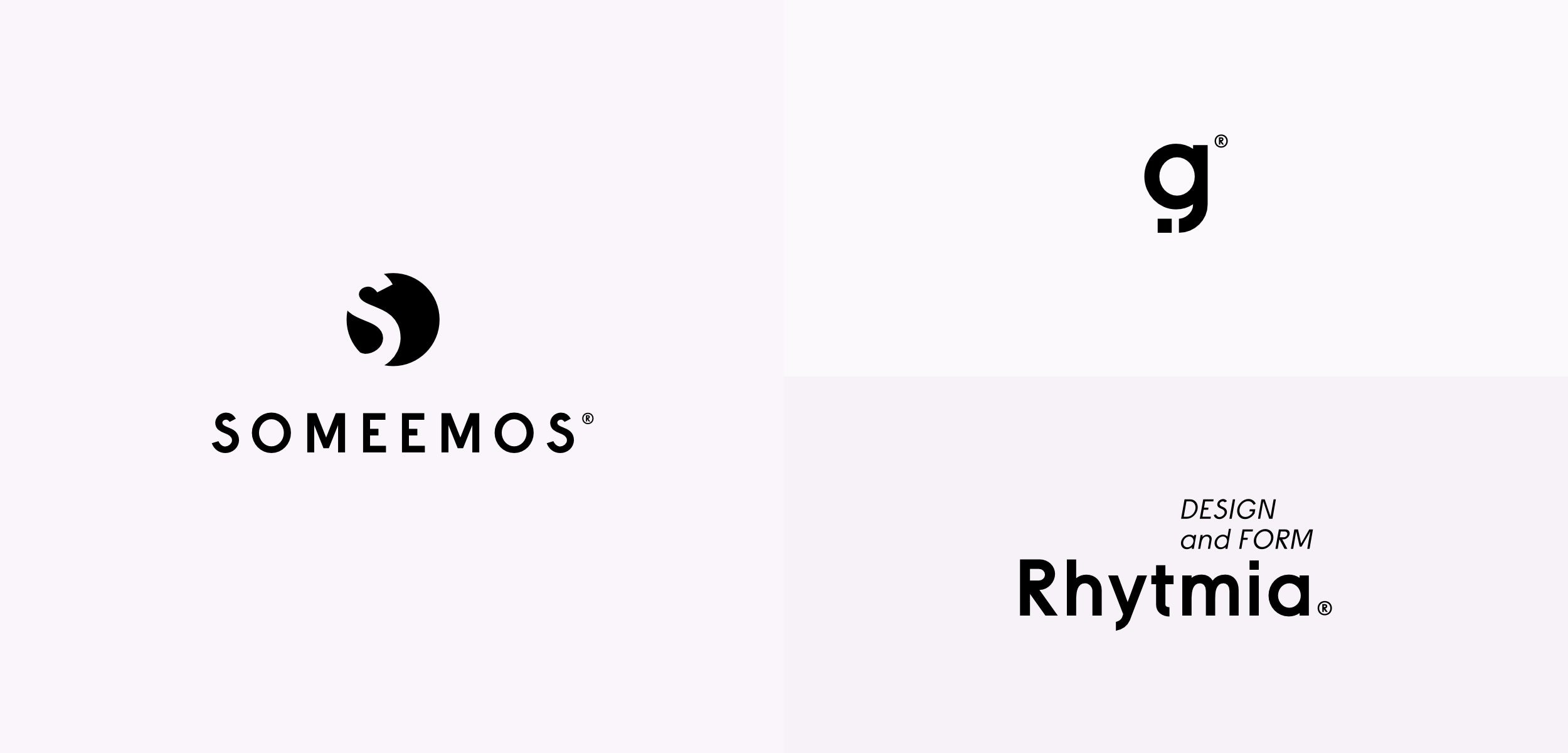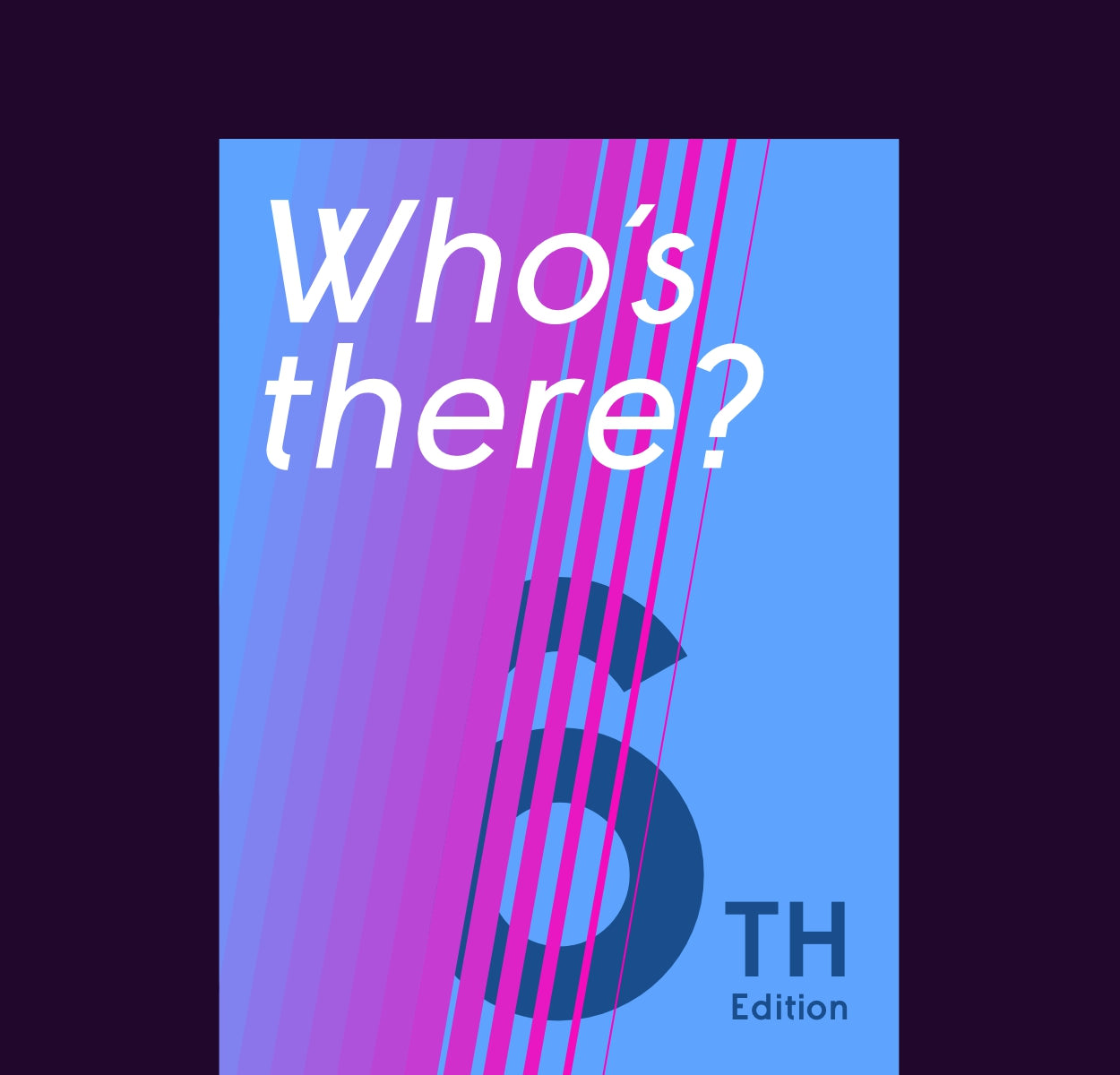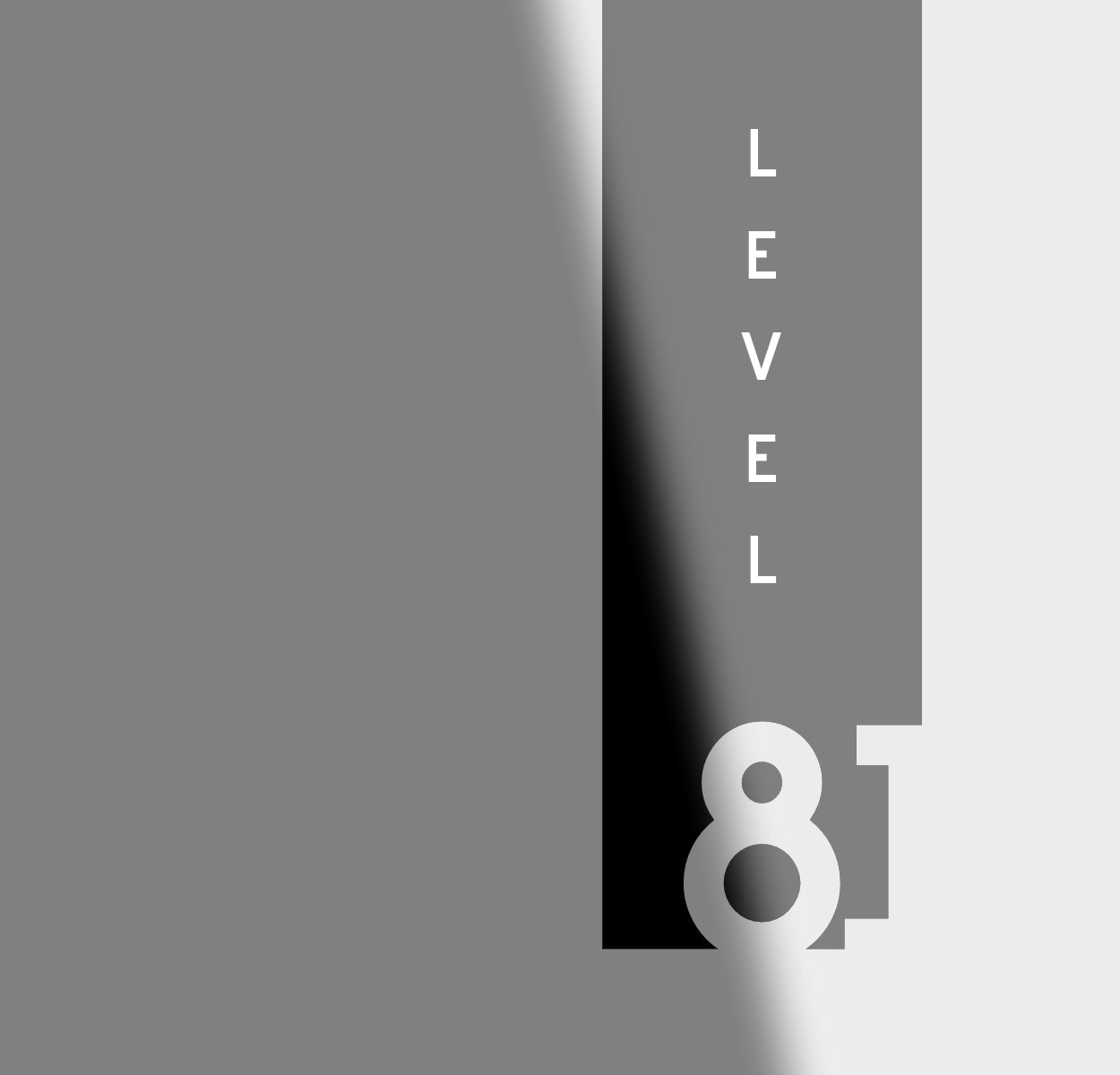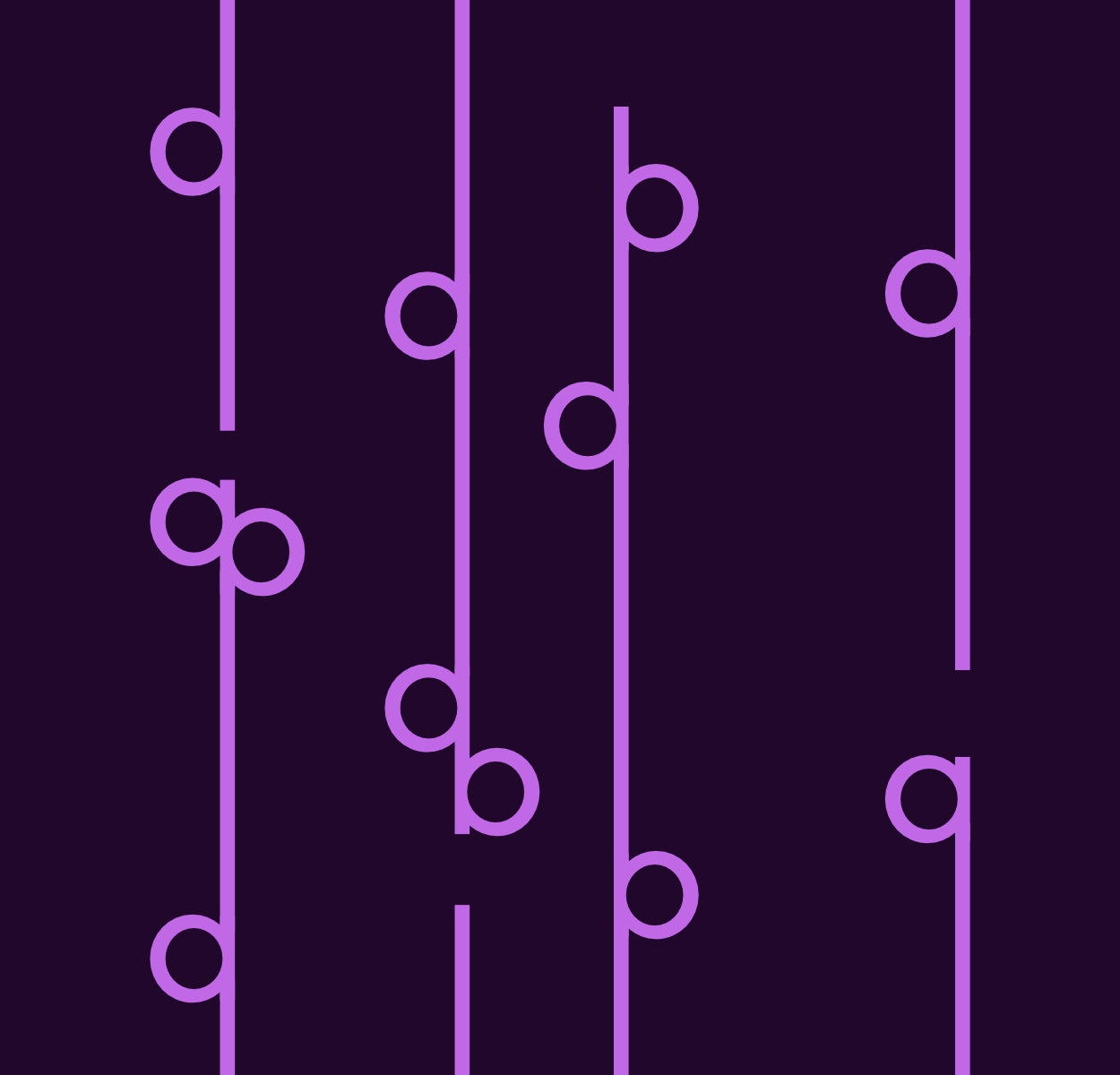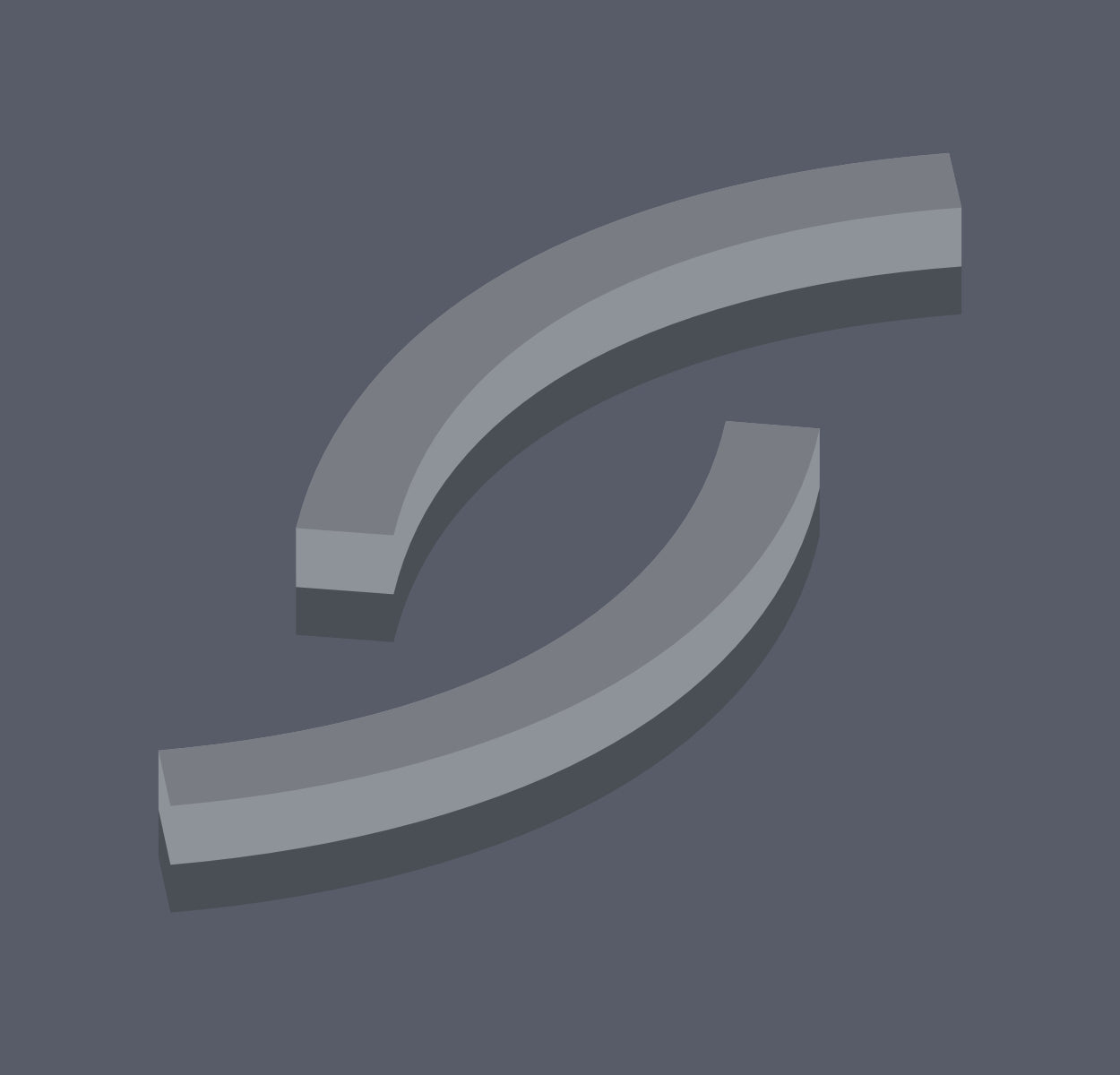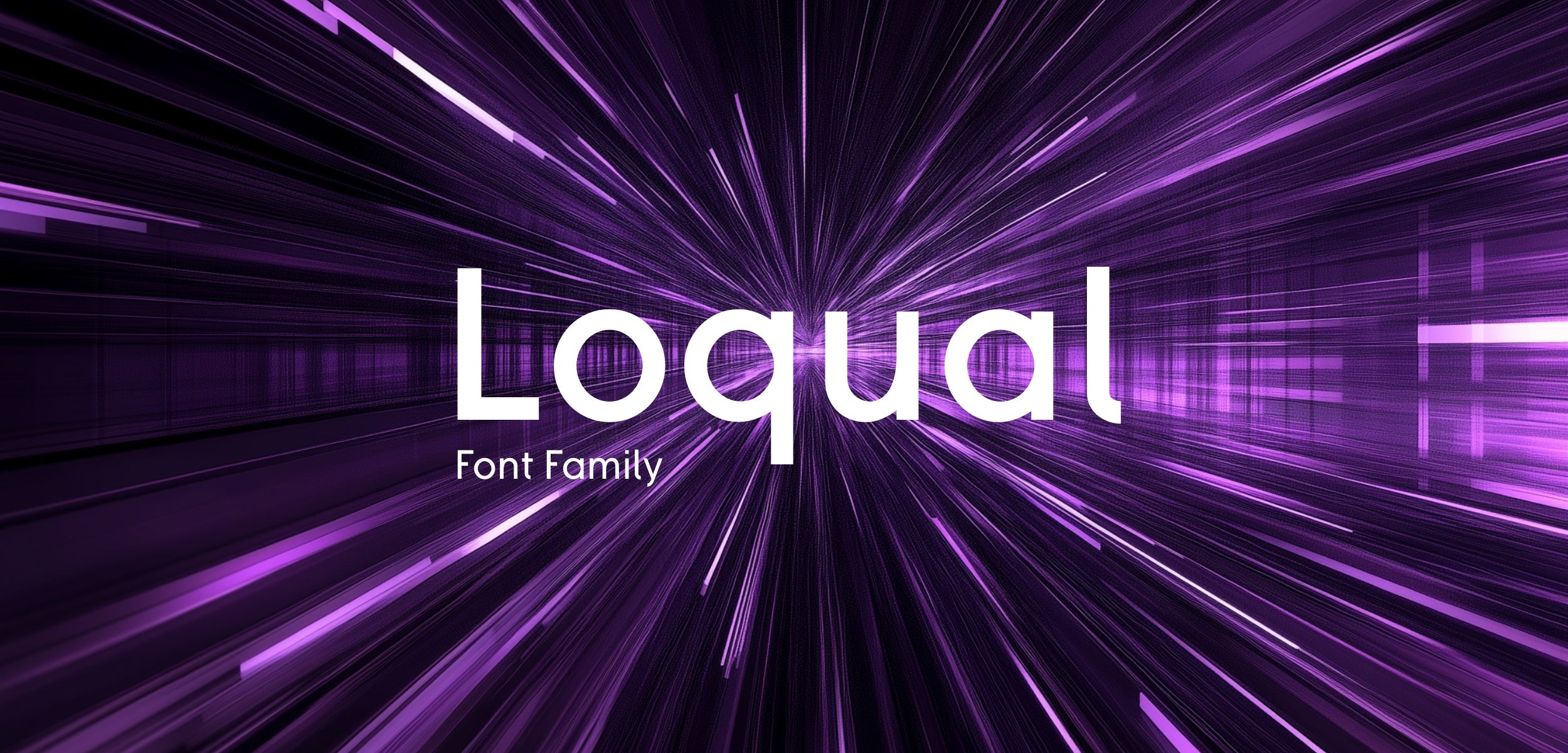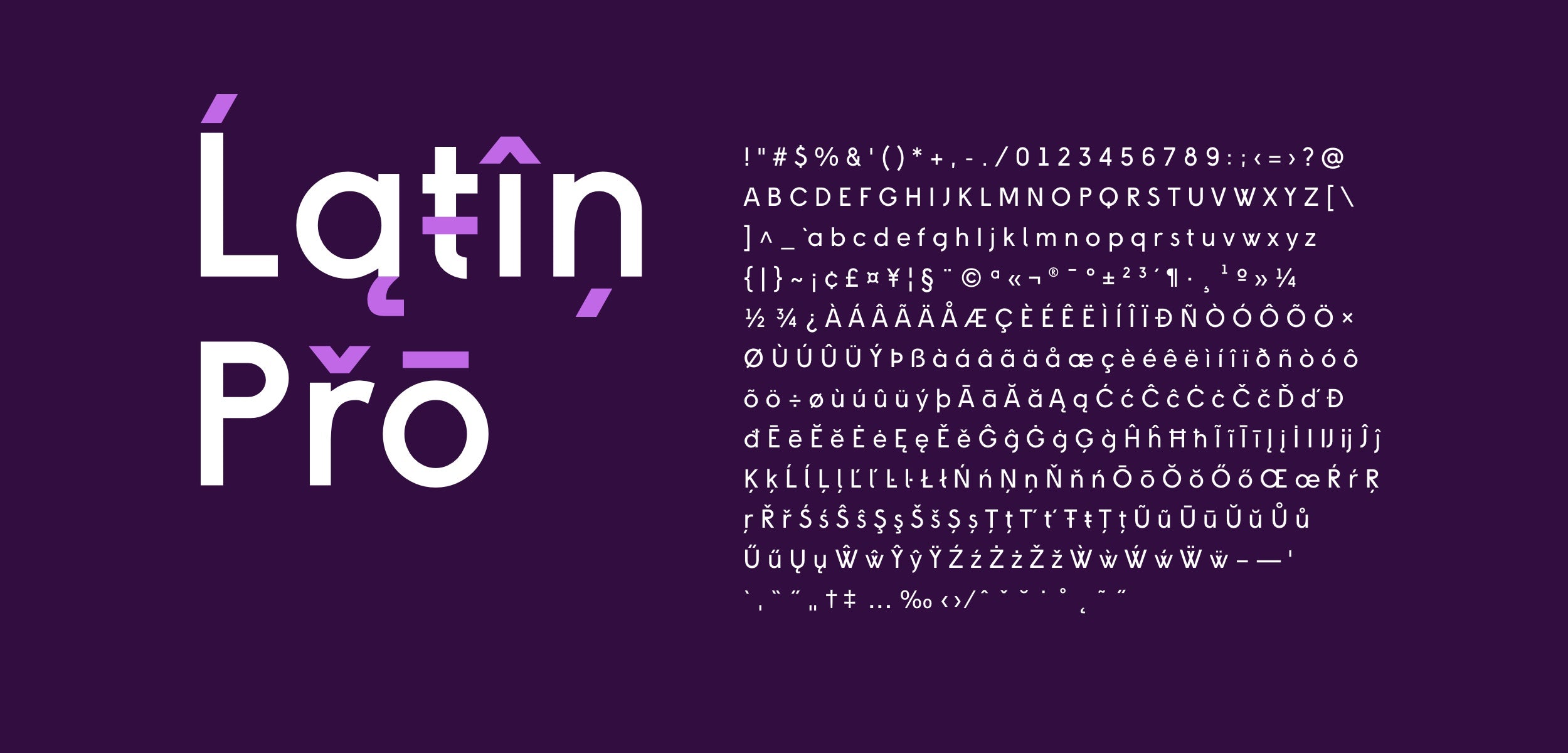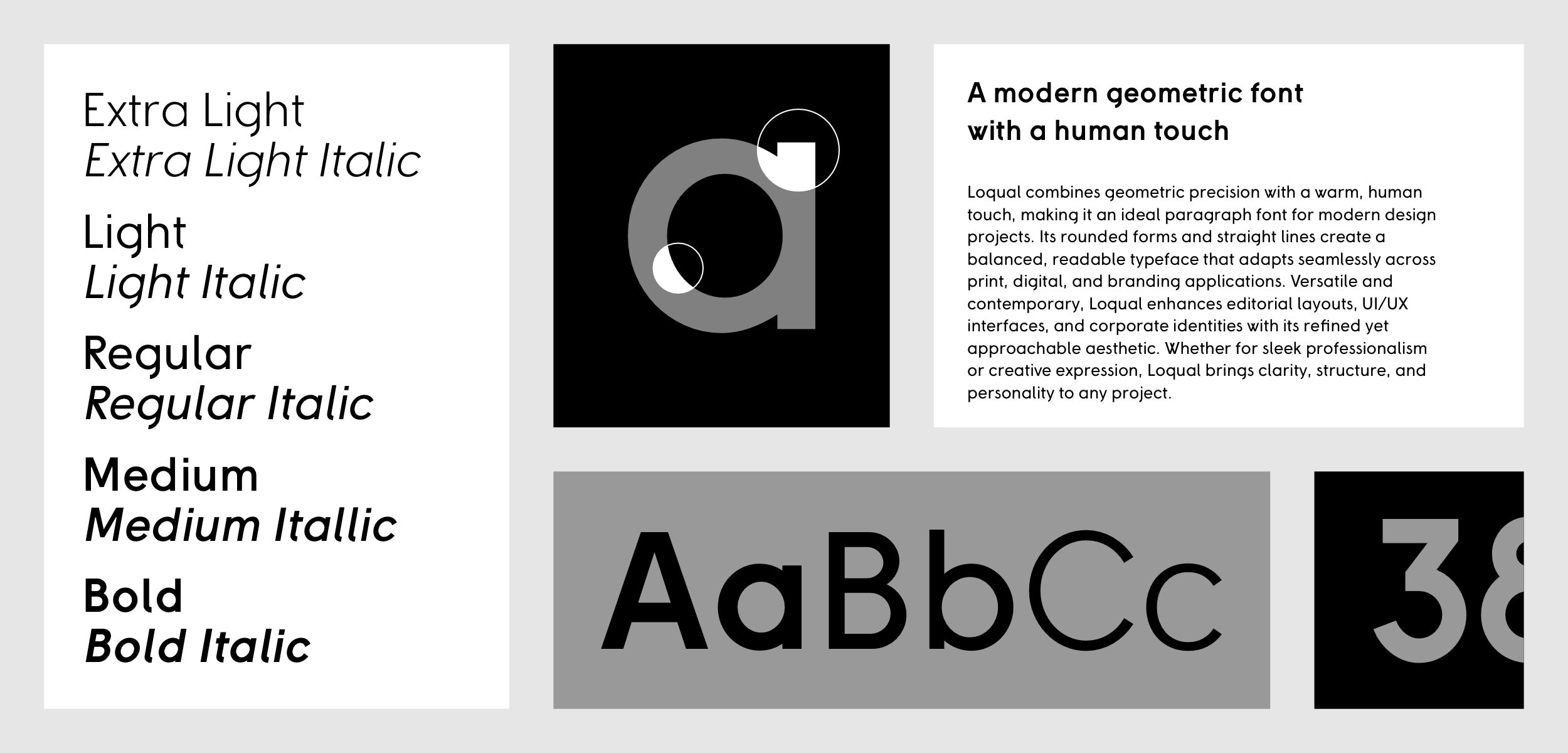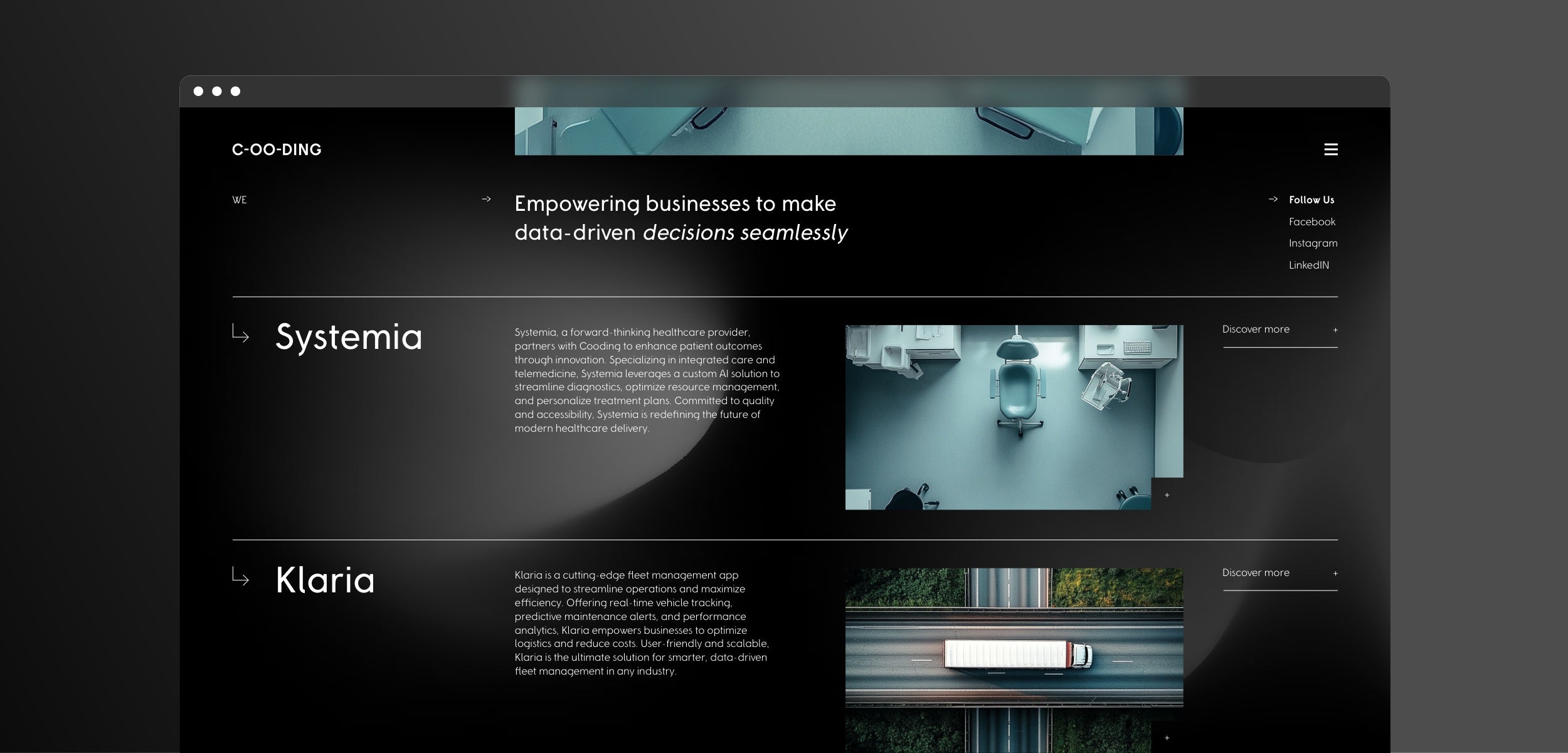
Use the the font to create symbol plus wordmark structures for your brand identity projects.
Create wordmark logos using only the font elements
Create bold wordmark logos using only the font characters.
Loqual’s balanced geometric and humanist touch enhances editorial layouts, branding, and packaging. Its readability and modern aesthetic make it ideal for magazines, brochures, posters, and corporate communications with a refined yet approachable feel.
Loqual’s structured yet organic letterforms inspire signage, wayfinding, and spatial graphics. Its modern, geometric flow integrates seamlessly into contemporary interiors, architectural elements, and urban environments, ensuring clarity and aesthetic harmony.
Loqual’s modular letterforms enable the creation of unique design structures, abstract layouts, and intricate patterns. Its geometric precision and soft edges offer versatility for experimental typography, branding, and creative pattern development across multiple media.
Loqual’s round geometric structure translates beautifully into 3D typography, engraved text, and product design. Its sleek lines and curves create dynamic, visually engaging elements for digital interfaces, animations, and immersive visual environments.
Loqual’s balanced geometric and humanist touch enhances editorial layouts, branding, and packaging. Its readability and modern aesthetic make it ideal for magazines, brochures, posters, and corporate communications with a refined yet approachable feel.
Loqual’s structured yet organic letterforms inspire signage, wayfinding, and spatial graphics. Its modern, geometric flow integrates seamlessly into contemporary interiors, architectural elements, and urban environments, ensuring clarity and aesthetic harmony.
Loqual’s modular letterforms enable the creation of unique design structures, abstract layouts, and intricate patterns. Its geometric precision and soft edges offer versatility for experimental typography, branding, and creative pattern development across multiple media.
Loqual’s round geometric structure translates beautifully into 3D typography, engraved text, and product design. Its sleek lines and curves create dynamic, visually engaging elements for digital interfaces, animations, and immersive visual environments.